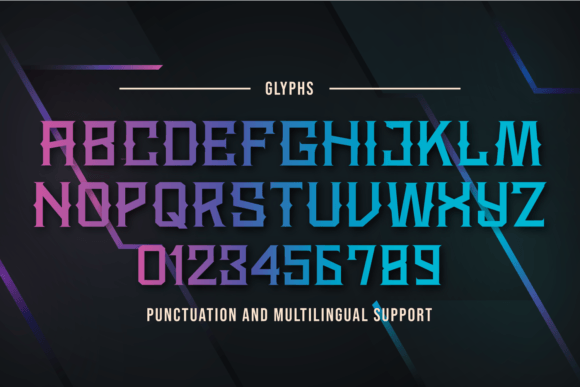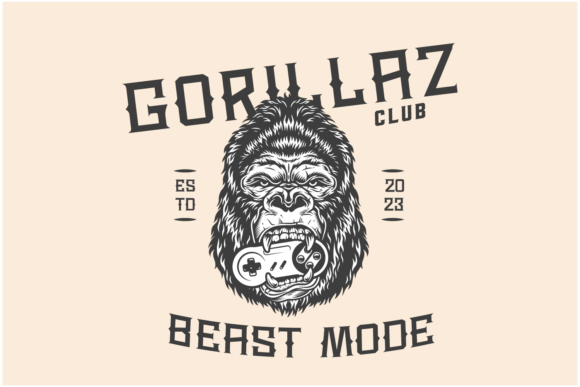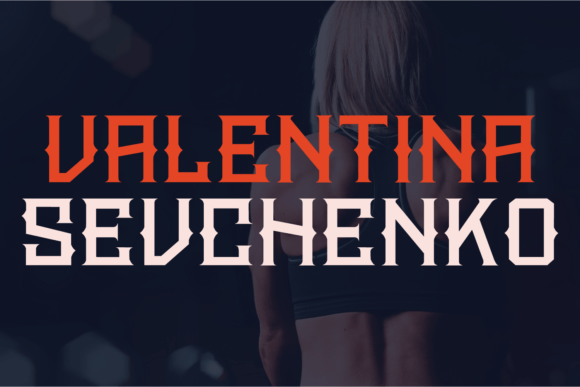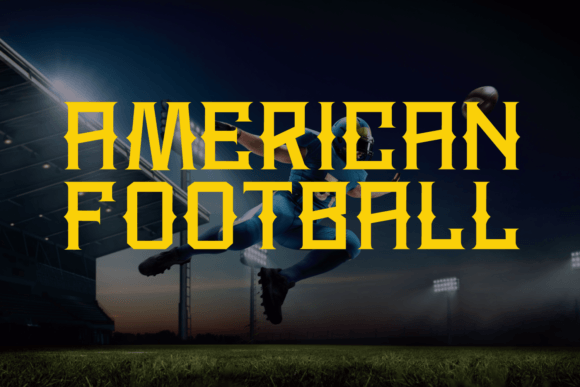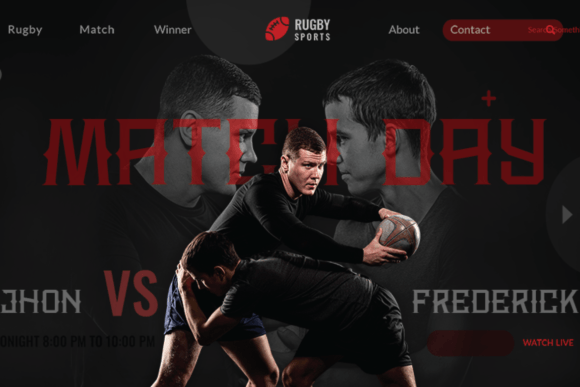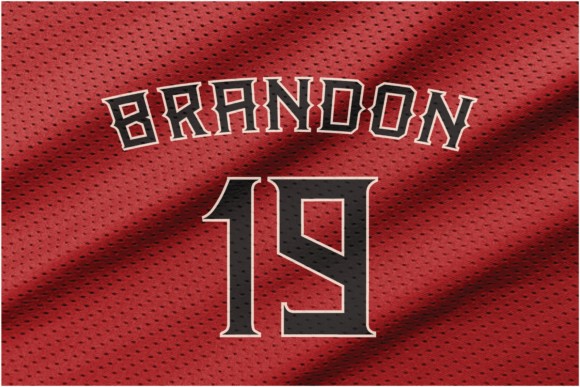
Introduction to Jurasick Uppercase Font
Jurasick uppercase is a bold and unique display font that is perfect for creating eye-catching logos, headlines, and titles.
With its sharp edges, smooth curves, and strong lines, it has a modern, edgy style that will make your message stand out .
Key Features of Jurasick Uppercase Font
Why Choose Jurasick Uppercase Font?
Jurasick Uppercase Font offers exceptional quality and versatility, making it a valuable addition to your design toolkit. Whether you’re creating for personal projects or commercial use, Jurasick Uppercase Font delivers professional results.